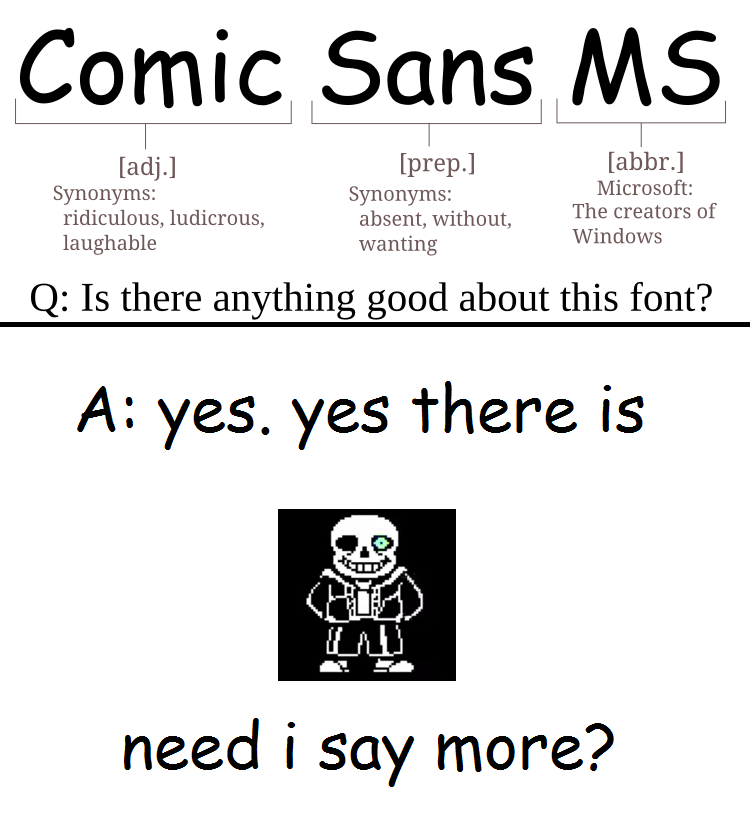
Sans Undertale Font
Sans Undertale Font - Created on 18th june 2018. This is the font used when sans the sansational skeleton talks! Comic sans is arguably the best font ever! Click to find the best 2 free fonts in the undertale style. Last edited on 6th december 2018. These are.ttf fonts that mimic the pixelated versions of comic sans and papyrus that appear in the game. It was designed by vincent connare in 1994, and is included with microsoft windows. Every font is free to download! The kerning should be fairly.
Last edited on 6th december 2018. Comic sans is arguably the best font ever! It was designed by vincent connare in 1994, and is included with microsoft windows. This is the font used when sans the sansational skeleton talks! Every font is free to download! The kerning should be fairly. Click to find the best 2 free fonts in the undertale style. Created on 18th june 2018. These are.ttf fonts that mimic the pixelated versions of comic sans and papyrus that appear in the game.
Created on 18th june 2018. It was designed by vincent connare in 1994, and is included with microsoft windows. The kerning should be fairly. Every font is free to download! This is the font used when sans the sansational skeleton talks! Click to find the best 2 free fonts in the undertale style. These are.ttf fonts that mimic the pixelated versions of comic sans and papyrus that appear in the game. Comic sans is arguably the best font ever! Last edited on 6th december 2018.
The kerning should be fairly. Created on 18th june 2018. These are.ttf fonts that mimic the pixelated versions of comic sans and papyrus that appear in the game. Comic sans is arguably the best font ever! Last edited on 6th december 2018.
It was designed by vincent connare in 1994, and is included with microsoft windows. Last edited on 6th december 2018. Created on 18th june 2018. Click to find the best 2 free fonts in the undertale style. This is the font used when sans the sansational skeleton talks!
Created on 18th june 2018. It was designed by vincent connare in 1994, and is included with microsoft windows. Last edited on 6th december 2018. Every font is free to download! This is the font used when sans the sansational skeleton talks!
Last edited on 6th december 2018. Click to find the best 2 free fonts in the undertale style. The kerning should be fairly. Every font is free to download! These are.ttf fonts that mimic the pixelated versions of comic sans and papyrus that appear in the game.
Created on 18th june 2018. This is the font used when sans the sansational skeleton talks! Every font is free to download! It was designed by vincent connare in 1994, and is included with microsoft windows. Click to find the best 2 free fonts in the undertale style.
Created on 18th june 2018. Every font is free to download! These are.ttf fonts that mimic the pixelated versions of comic sans and papyrus that appear in the game. This is the font used when sans the sansational skeleton talks! The kerning should be fairly.
These are.ttf fonts that mimic the pixelated versions of comic sans and papyrus that appear in the game. Comic sans is arguably the best font ever! Last edited on 6th december 2018. Created on 18th june 2018. The kerning should be fairly.
Comic sans is arguably the best font ever! Created on 18th june 2018. It was designed by vincent connare in 1994, and is included with microsoft windows. These are.ttf fonts that mimic the pixelated versions of comic sans and papyrus that appear in the game. Click to find the best 2 free fonts in the undertale style.
Comic sans is arguably the best font ever! Created on 18th june 2018. Last edited on 6th december 2018. Click to find the best 2 free fonts in the undertale style. It was designed by vincent connare in 1994, and is included with microsoft windows.
Comic Sans Is Arguably The Best Font Ever!
It was designed by vincent connare in 1994, and is included with microsoft windows. Every font is free to download! The kerning should be fairly. These are.ttf fonts that mimic the pixelated versions of comic sans and papyrus that appear in the game.
This is the font used when sans the sansational skeleton talks! Last edited on 6th december 2018. Created on 18th june 2018.